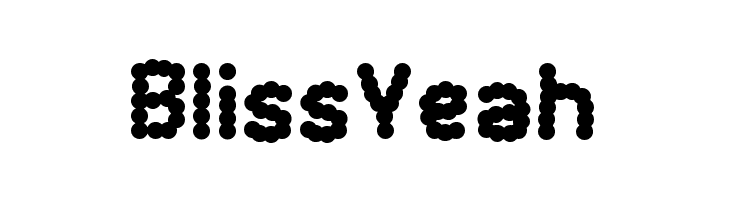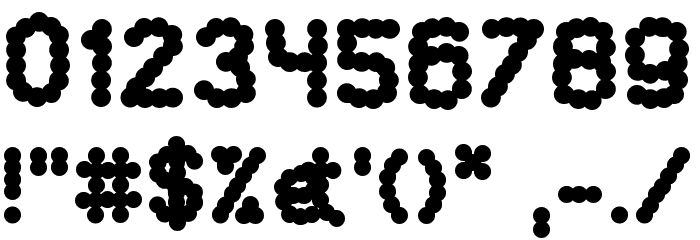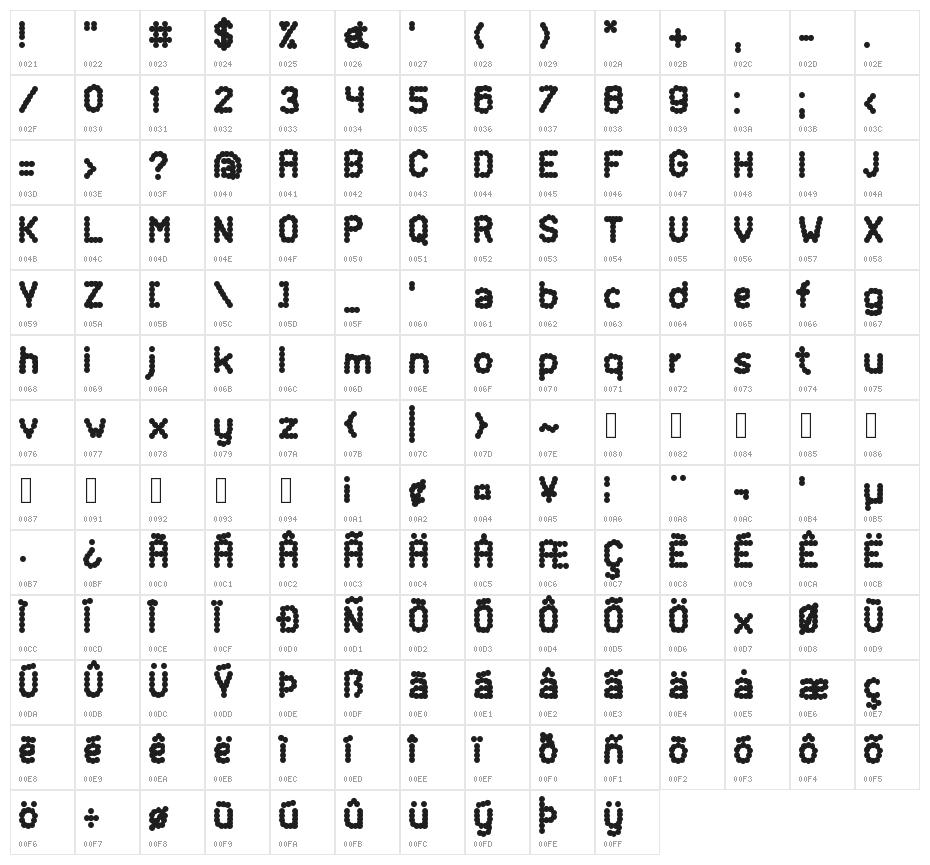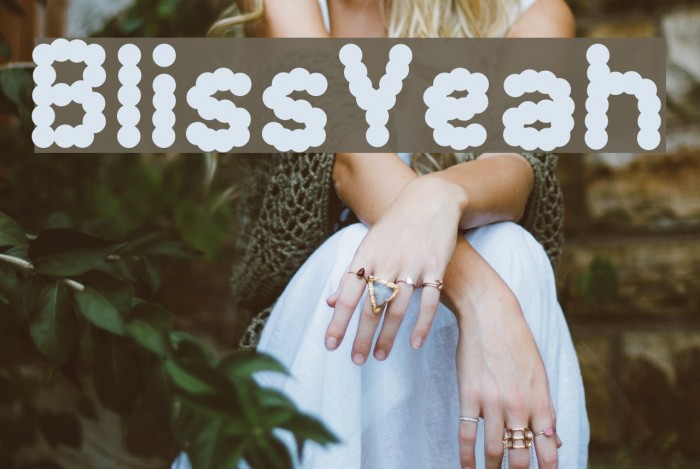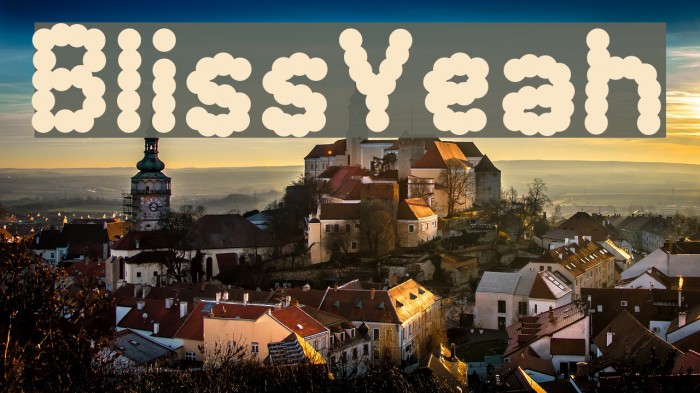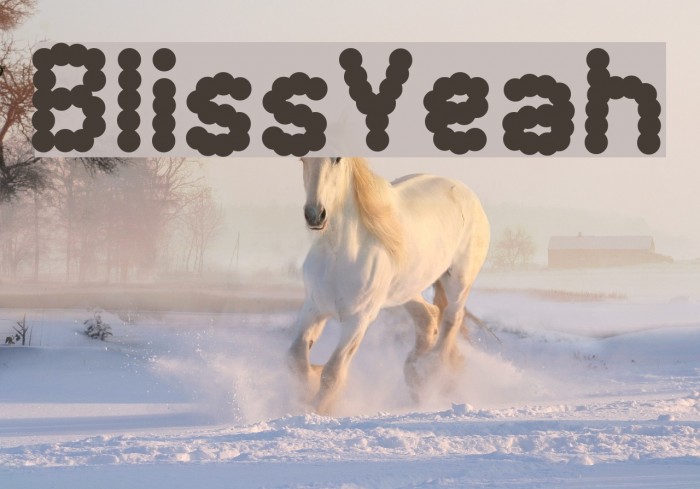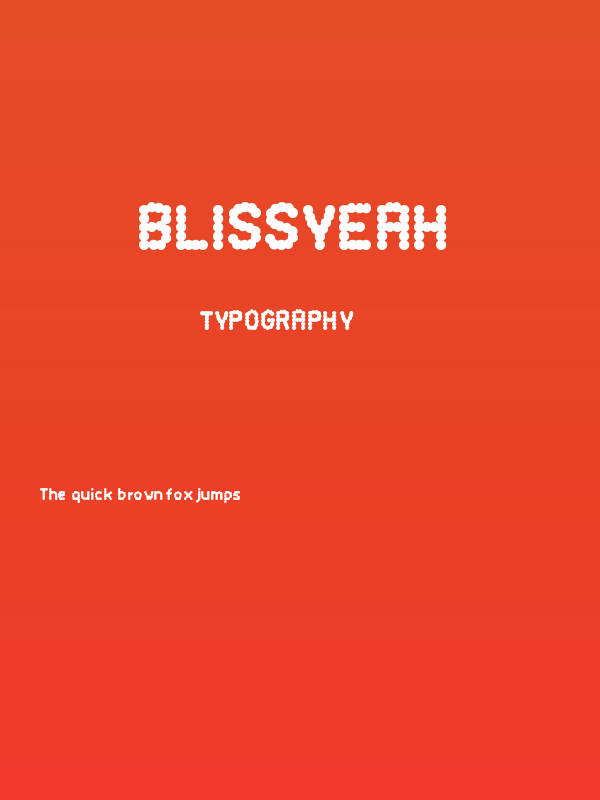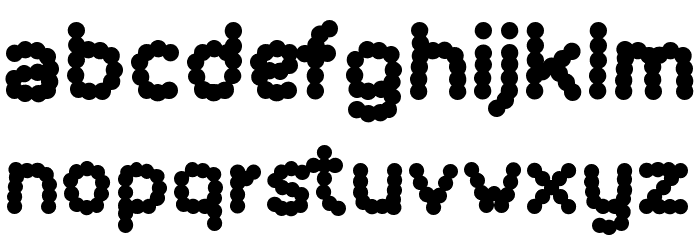
BlissYeah Font
BlissYeah Description
This playful and unique font features characters composed of small, rounded dots, creating a bubbly and textured appearance. The letters are bold and eye-catching, with a consistent circular motif that gives the font a cohesive and whimsical feel. The uppercase and lowercase letters maintain a uniform style, while the numbers and special characters integrate seamlessly with the overall design. This font's distinctive look makes it ideal for projects that require a fun and engaging visual element.
Overall StylePlayful, Whimsical
Proposed ProjectsIdeal for children's books, playful branding, party invitations, and creative posters.